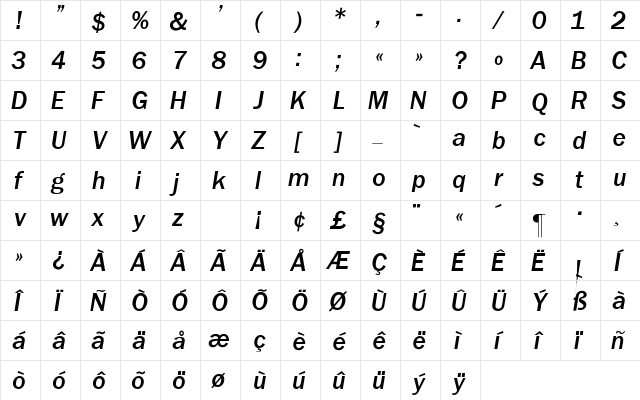
Franklin_Gothic-MediumItalic Regular
Design Context for Franklin_Gothic-MediumItalic Typeface
Franklin_Gothic-MediumItalic takes a clean, functional approach — its unadorned letterforms prioritise legibility and work reliably across screen and print environments. The dynamic lean of this cut emphasises speed and emphasis in any layout.
Font Pairing: Works well alongside a characterful serif or display font that can carry the expressive load while Franklin_Gothic-MediumItalic handles the functional copy.
Pro Tip: Use Franklin_Gothic-MediumItalic for UI labels, navigation, and short-form body copy where clean legibility is the priority.